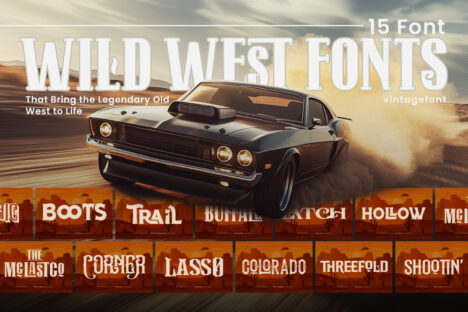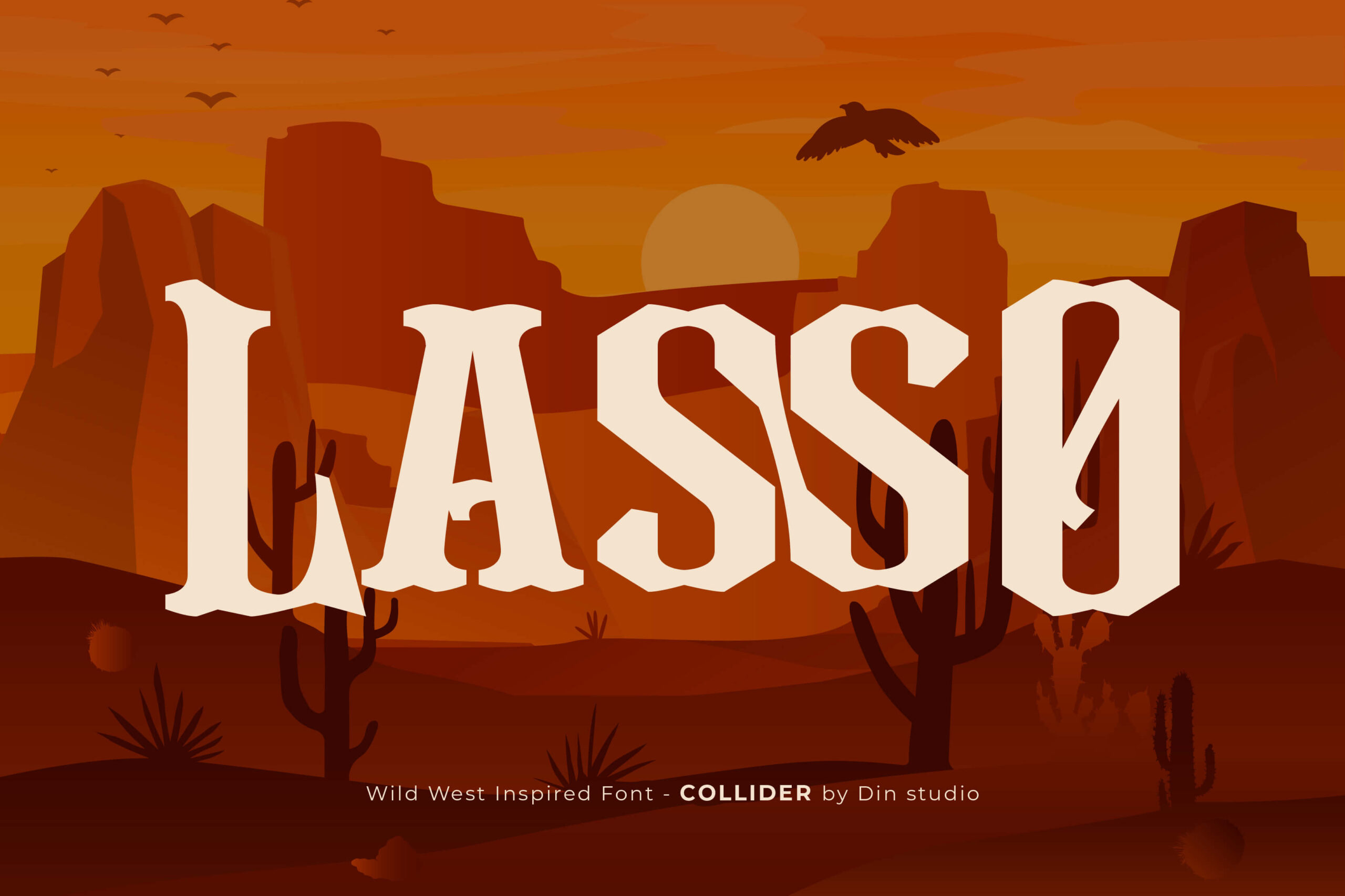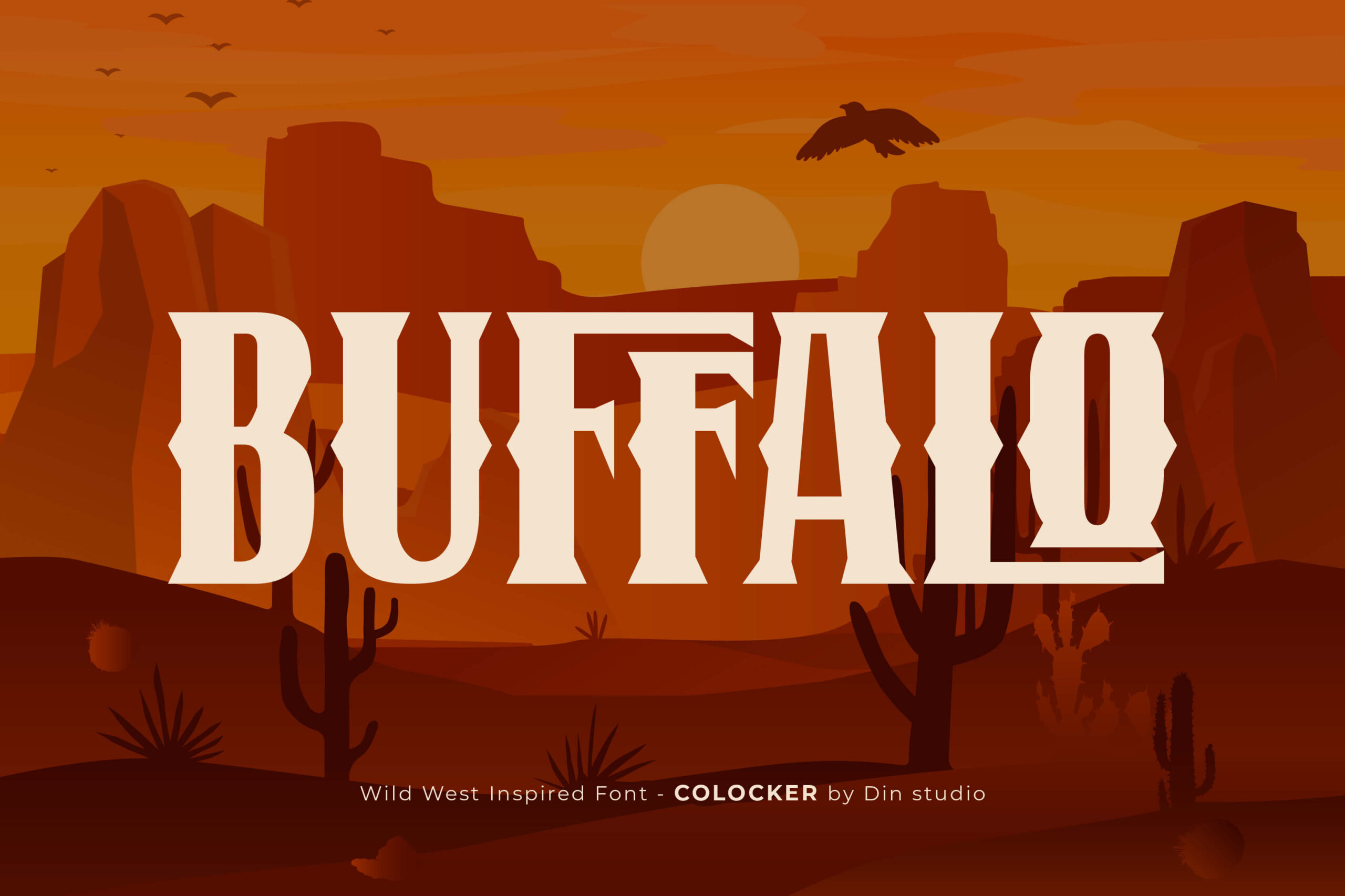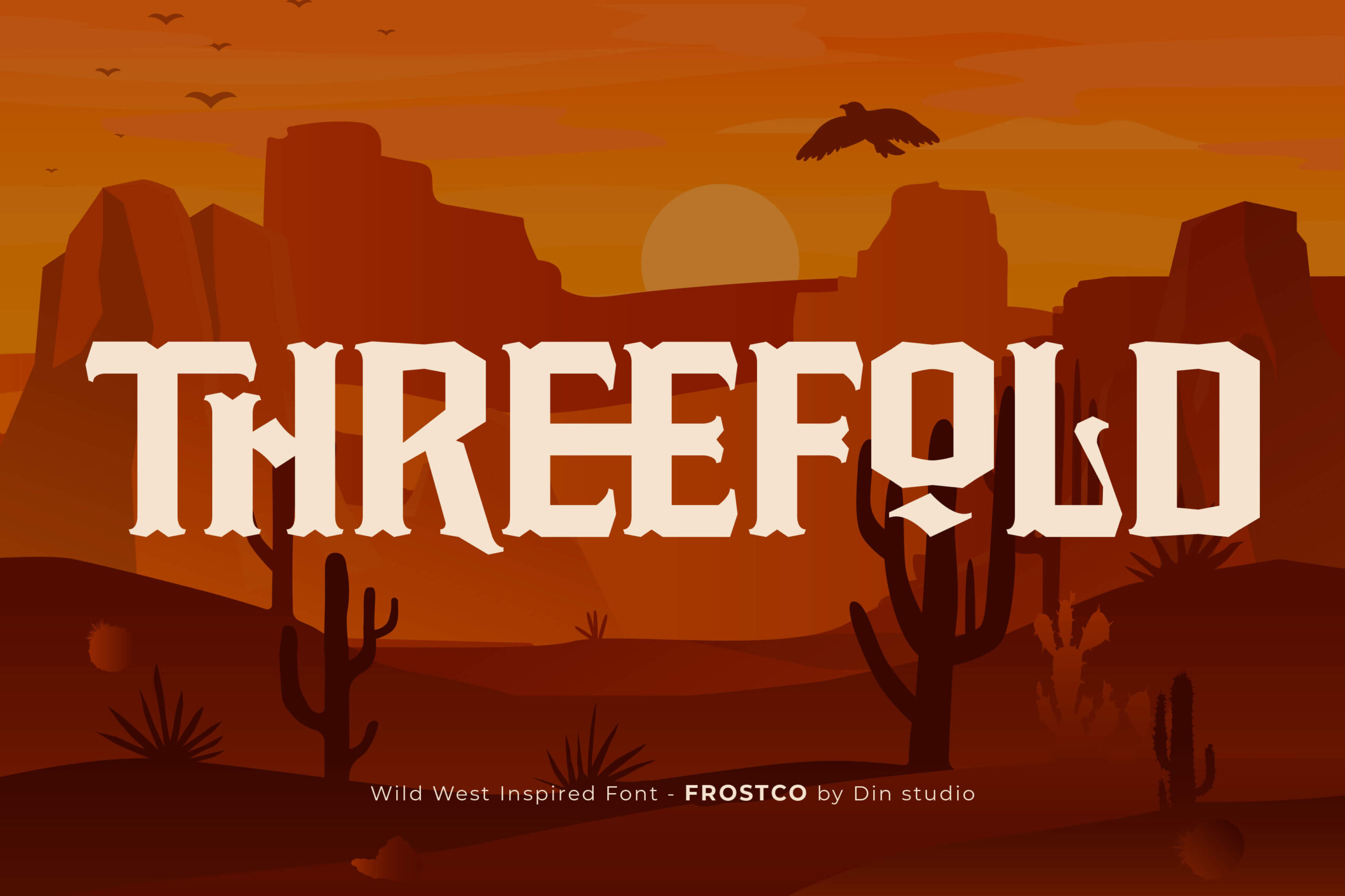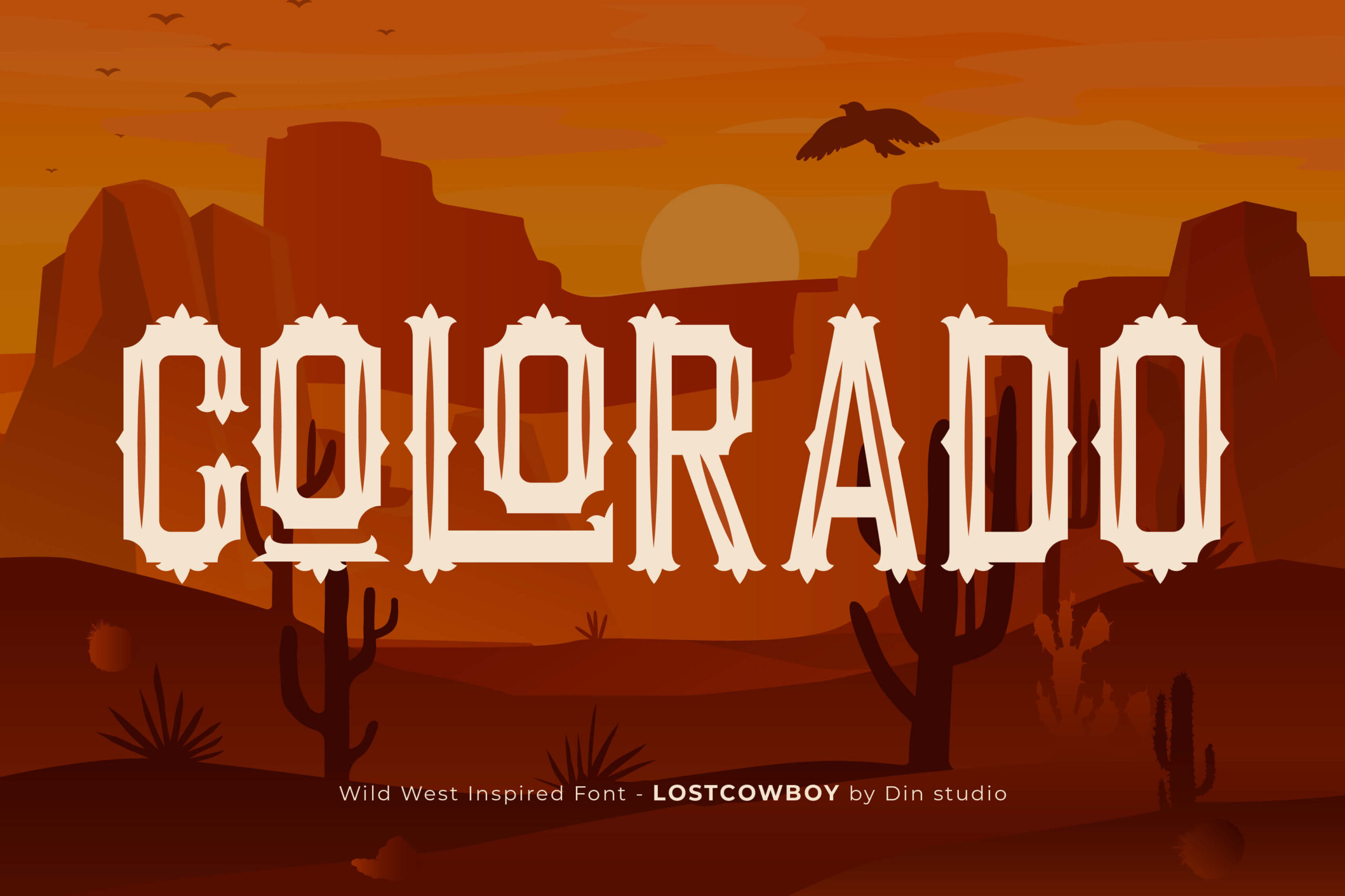
15 Wild West Fonts That Bring the Legendary Old West to Life
When hearing the term “Wild West”, what usually comes to mind are dusty cowboys riding horses, saloons with swinging doors, duels in the middle of the street, and “Wanted” posters stuck to wooden boards. All those iconic things become the reference for designs with the Wild West genre as well as inspiration for the creation of Wild West fonts.
Wild West fonts were born in the middle of the 19th century along with the development of wood type printing techniques in America. This type of typography then became a visual symbol for frontier cultures that was able to maintain its existence in movies, designs, and retro and classic branding. In the world of typography, large letters with thick slab serif forms are often chosen for easy readability from a distance. Meanwhile, the selection of more decorative fonts is usually used for things that require dramatic visual appeal.
The main appeal of Wild West fonts relies on the ability to evoke a nostalgic and masculine sense at the same time. The typography represents bravery, toughness, and a lawless vibe in the cowboy era. Therefore, let’s explore some Wild West fonts that can evoke a classic and historical cultural feeling in modern designs.
15 Attention-Grabbing Wild West Fonts for You
In the next part, we’ll take a closer look at 15 of the most iconic and versatile Wild West fonts. They range from strong slab serifs to dramatic, decorative display styles. Aside from that, we’ll discuss how each font translates different design types into gorgeous artwork.
Tarvise
As a typography inspired by the Wild West era, Tarvise is a type of display font that can evoke a classic yet authoritative atmosphere. This font is designed entirely in uppercase letters with solid and firm characteristics, displaying decorative and consistent shapes. The extrude in the design example provides depth and a strong visual dimension. Its uniqueness lies in the decorative details on certain parts of the letters, which create a dramatic and classic impression. Tarvise not only showcases a vintage style but also an aura that is historical and legendary, as seen in the Mythic design example above. With these characteristics, this font is very suitable for designs that carry a classic Western atmosphere or vintage Americana themes.
Glycost
Introducing Glycost, a font with a simple, strong, yet solid look. Unlike other Wild West fonts that are full of intricate ornamentals, Glycost has a simpler approach with maintained characters. Each letter is designed entirely in uppercase with proportional stroke thickness, firm line pulls, and a solid structure, making it easy to read even from a distance. The uniqueness of this font is evident in the small decorative cuts in the middle of the letter stems, which evoke the vintage poster feel typical of the cowboy era. In addition, the wide proportions of the capital letters with strong visual contrast make Glycost very effective for use in titles and. headlines.
Cholair
The Cholair font in the image preview exudes a distinct Wild West spirit while adding an attractive decorative touch. This font stands out by graceful curving characters in certain portions of the letters, particularly at stroke intersections and rounded ends of letters such as “C.” Consistent letter sizing, paired with inline and extruded designs, creates a strong sense of depth and dimension in all applications. Furthermore, complimentary ornaments like swirls improve the appearance, distinguishing it from most Wild West fonts, which tend to be rigid. With such characteristics, Cholair stands out not only in cowboy-themed designs but also in projects requiring a polished and powerful appearance.
Whitecopy
Whitecopy has a charismatic and tough Wild West look, similar to a cowboy who never forgot his “SHOOTIN'” pose. It also features tall letter characteristics and slightly thicker letter stems, yet it is still paired with unique fine details. Its key distinctive feature is the decorative elements, which prevent it from appearing like another slab serif. This font combines bold serifs with unique accents, like curves or ‘bites’ on certain letters, such as “O.” The protrusions at the base of the capital letters reflect the noticeable signpost shapes found on Wild West-era structures. Overall, this design successfully conveys a powerful and bold sense of adventure typical of the Wild West era.
Frostco
Next on this list of Wild West fonts is Frostco, a font with a brave and tough vibe. This font has characteristics of thick letter stems with sharp angles that form a firm and authoritative structure. Some letters like R, E, and D have unique cuts that are both distinctive and advantageous features of Frosto. This font also highlights outlines with smooth curves and slight irregularities, replacing the rigid impression of straight lines. This unique touch adds an authentic and handcrafted feel, perfect for the Wild West vibe.
Colocker
The Colocker font in the “BUFFALO” design above represents the authentic identity of the Wild West era. The letters of this font adopt the distinct Wild West aesthetic with sturdy, upright shapes and geometric cut elements on the letter stems, particularly on the vertical strokes and serif ends. In addition to its visual strength, Colocker strikes a balance between functionality and beauty. As a result, this font is appropriate for various Western-themed design projects, such as logos, posters, and product packaging that aim to convey a vintage and rugged feel.
Western Brother
Western Brother is a font inspired by the wild, free, and lawless aesthetics. The main uniqueness of this font is in its smooth curves and proportional letters. While most Wild West fonts have rigid slab serifs, Western Brother instead utilizes organic shapes with angles and letter connections that have soft curves. This font presents a more friendly and playful impression compared to other Wild West fonts, which tend to appear rough and rigid. Therefore, Western Brother is ideal for designs that want to convey a cowboy theme with a lighter touch or bring a vintage feel reminiscent of the 70s.